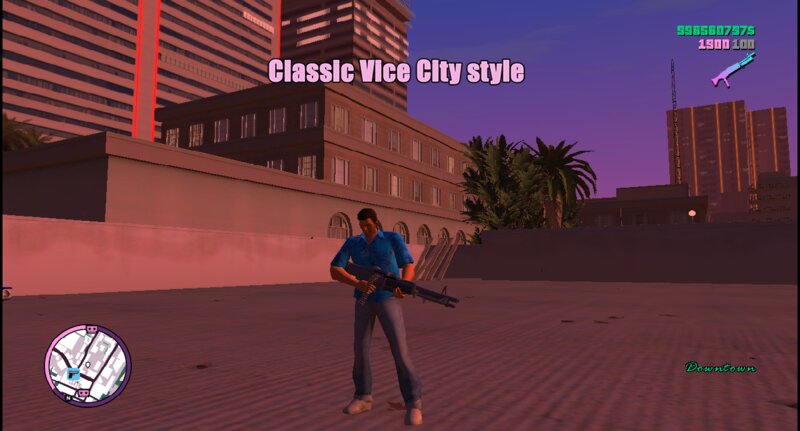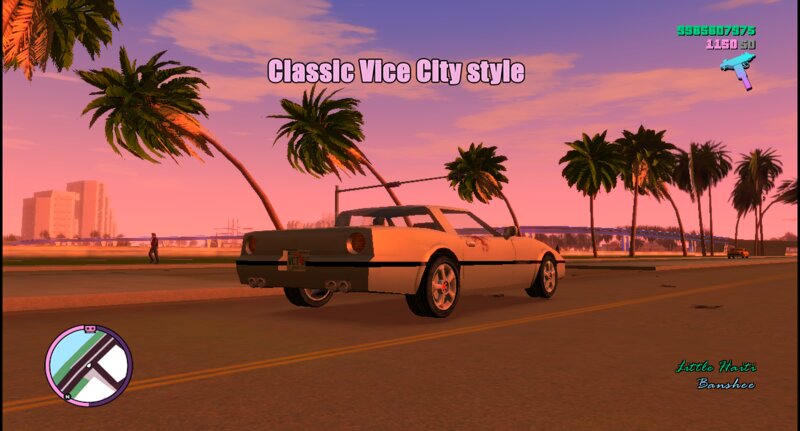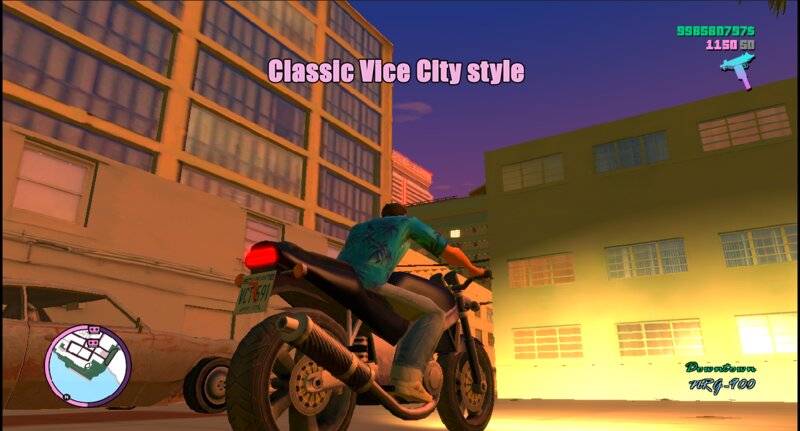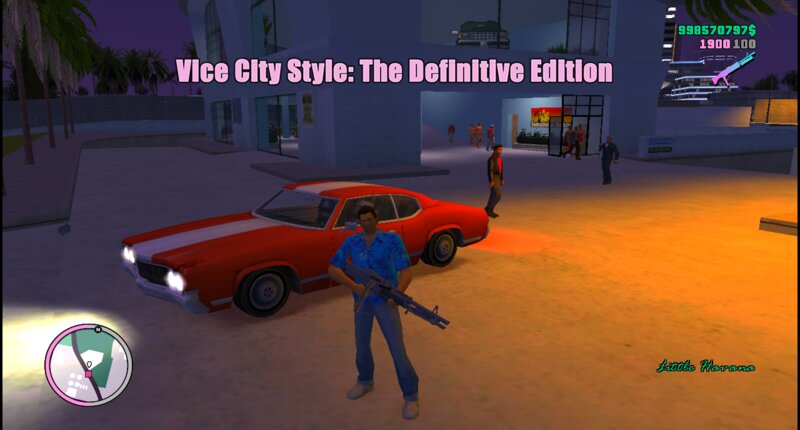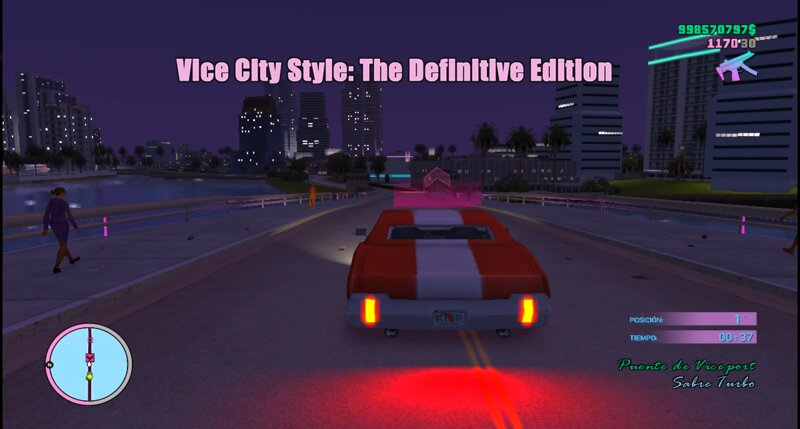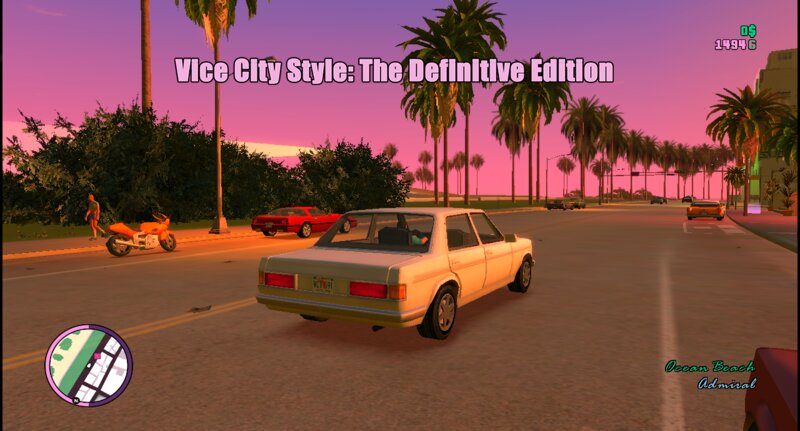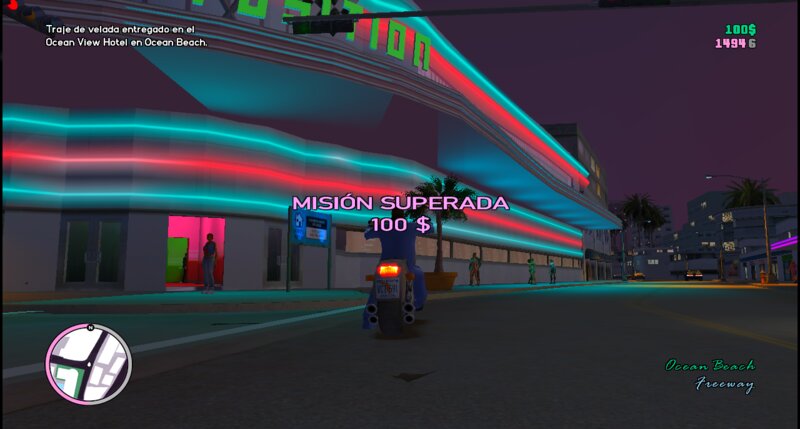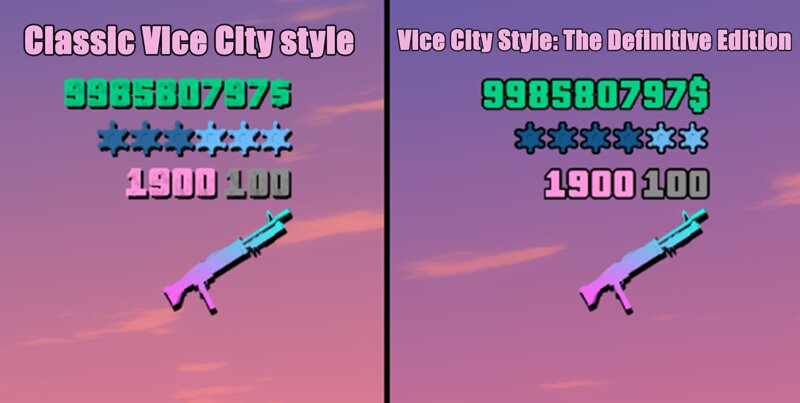
This is version 2 of the new fonts, more faithful to the original Vice City.
In this version, I've included two styles for the money and ammo fonts. The first is the style from the previous mod (Classic Vice City Style) and the new one is (Definitive Edition Vice City Style).
Each file in the common/data folder is important as they correct the colors of the HUD, the font size of car names, and the location. They also correct the large spaces between some letters that made the previous version look a bit awkward.
Esta es la segunda versión de las nuevas fuentes, más fieles al Vice City original.
En esta versión, he incluido dos estilos para las fuentes de dinero y munición. El primero es el estilo del mod anterior (Estilo Clásico de Vice City) y el nuevo (Estilo Definitive Edition de Vice City).
Cada archivo de la carpeta "common/data" es importante, ya que corrige los colores del HUD, el tamaño de fuente de los nombres de los coches y la ubicación. También corrige los grandes espacios entre algunas letras que hacían que la versión anterior se viera un poco extraña.